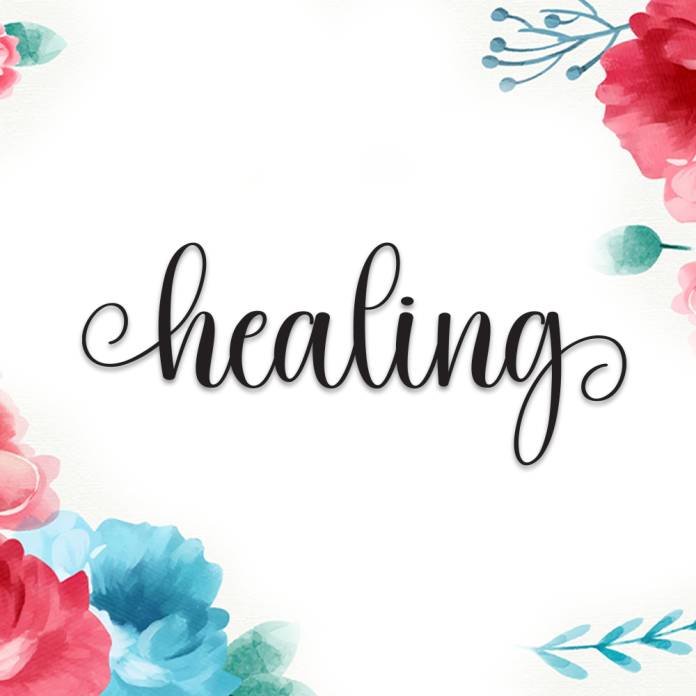
Healing is a soothing and elegant handwriting font that captures the beauty of natural pen strokes. With its soft curves and graceful flow, this font brings a warm, personal, and calming touch to your designs.
Gentle and natural handwritten style
Perfect for inspirational quotes, wellness branding, journals, and greeting cards
Smooth and flowing letterforms with a personal feel
Add a touch of calmness and elegance to your projects with Healing.